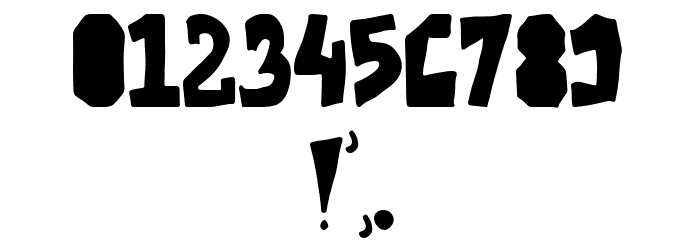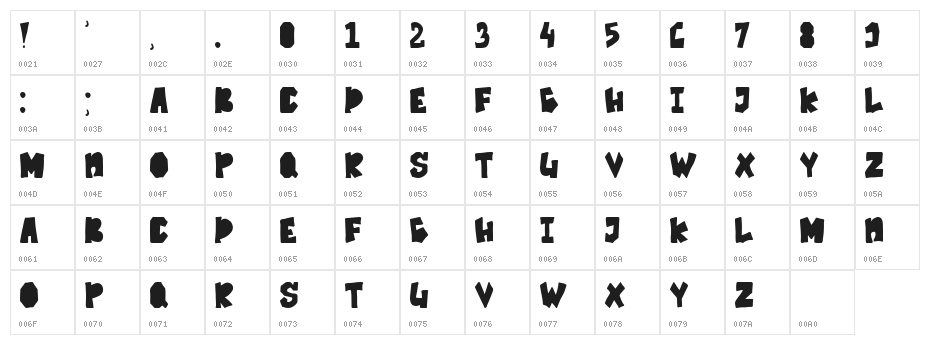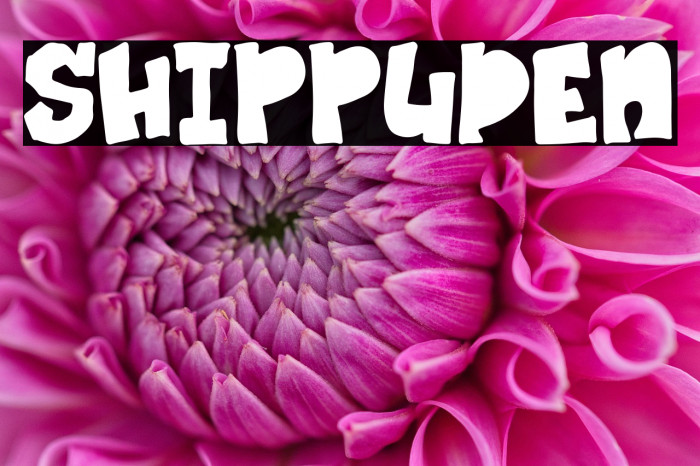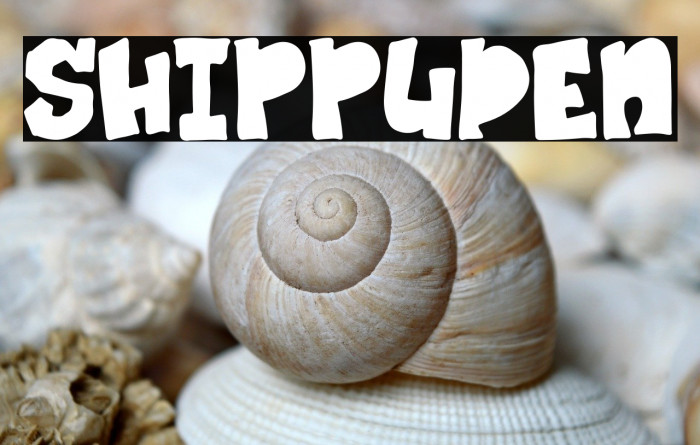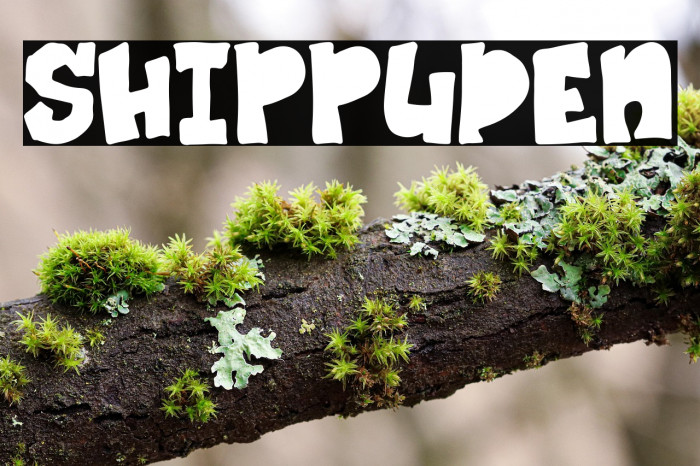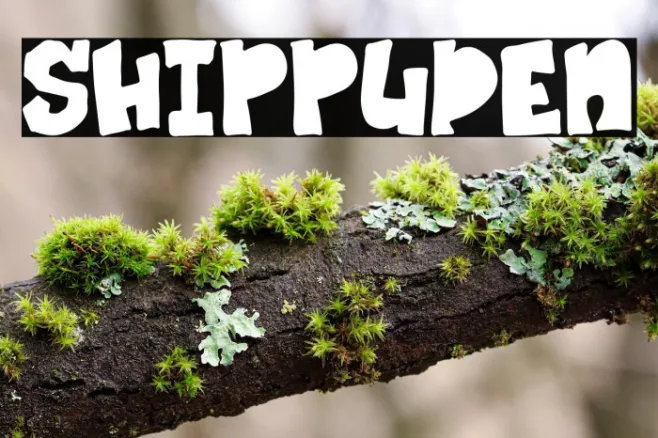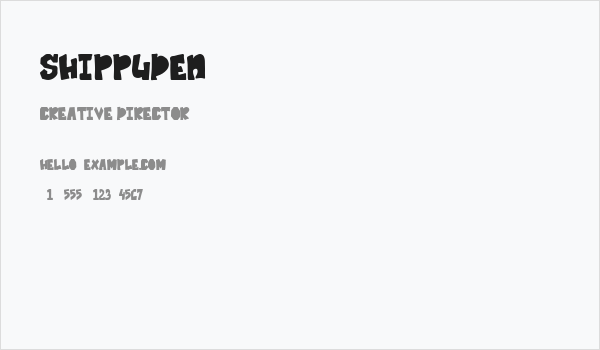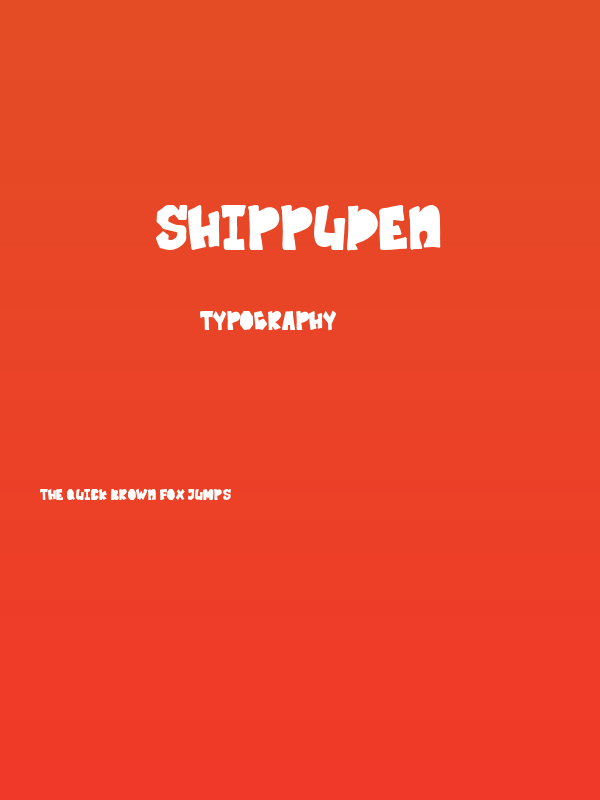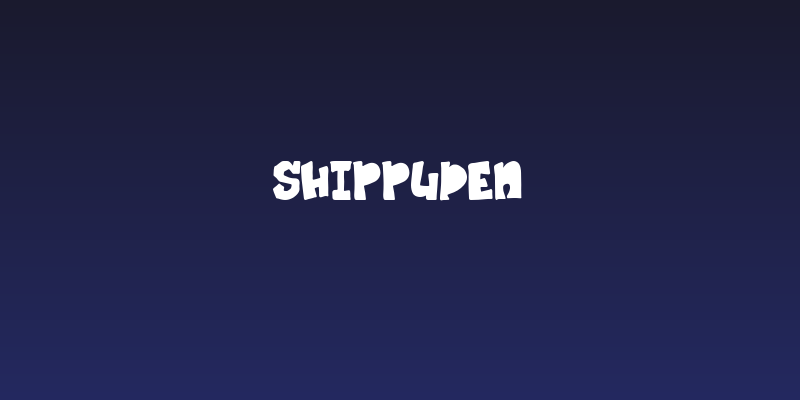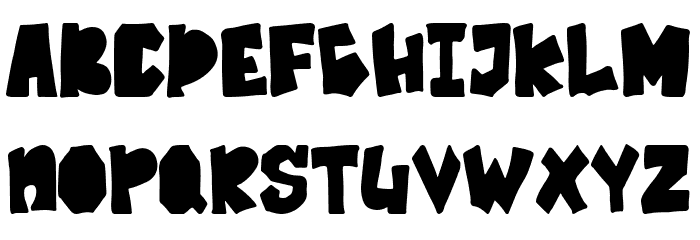
SHIPPUDEN Font
SHIPPUDEN Description
This font features a bold, dynamic style with a playful and energetic appearance. The characters are heavily stylized, with irregular shapes and varying thicknesses that give it a hand-drawn, graffiti-like feel. The uppercase and lowercase letters maintain a consistent visual theme, with exaggerated curves and angles that create a sense of movement. The numbers and special characters follow the same design principles, ensuring a cohesive look across all glyphs. This font is ideal for projects that require a bold statement and a touch of creativity.
| Proposed Projects | Perfect for posters, album covers, video game graphics, and any project needing a bold, creative touch. |